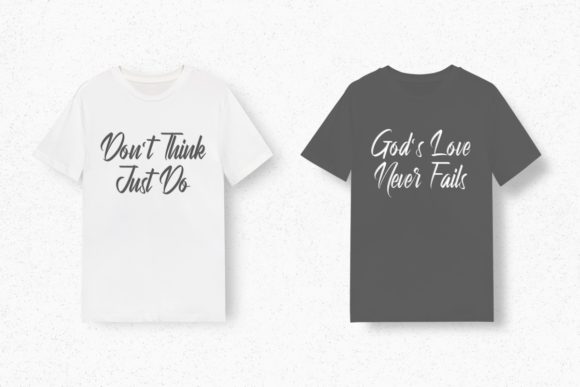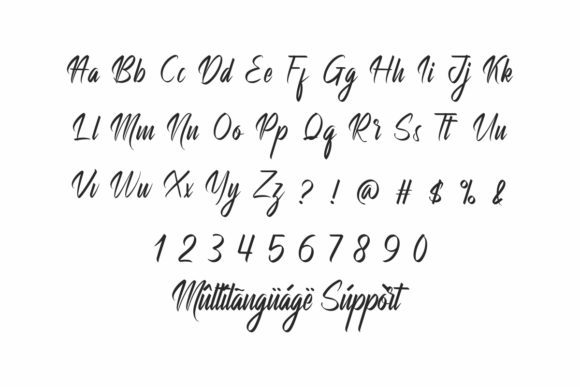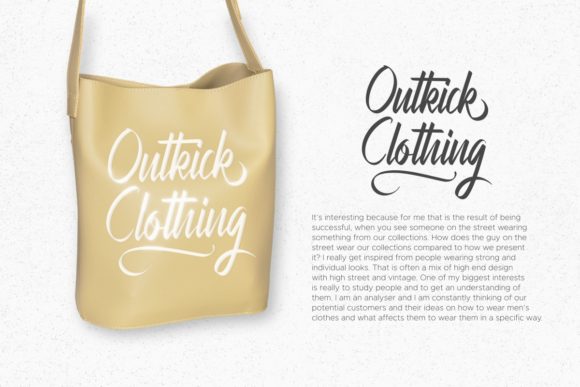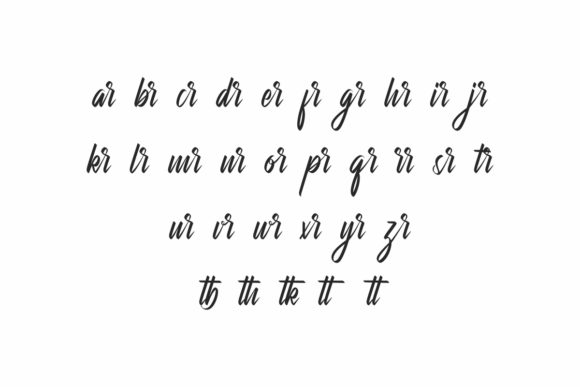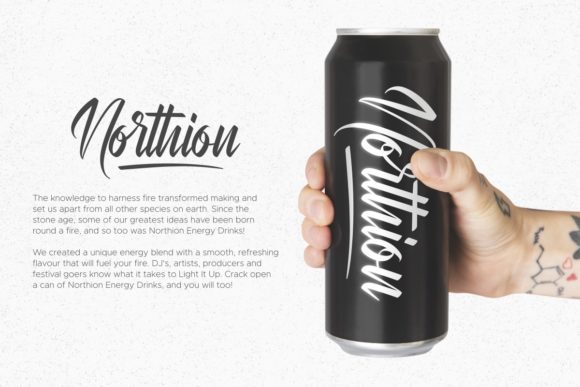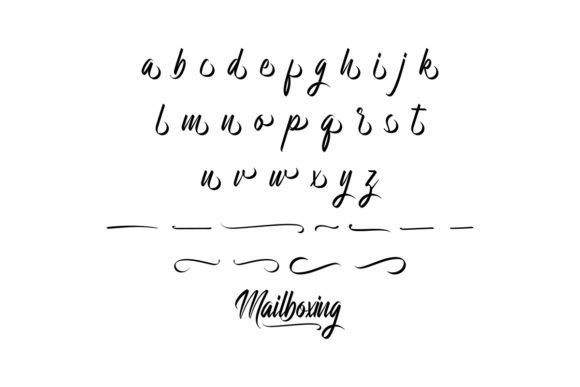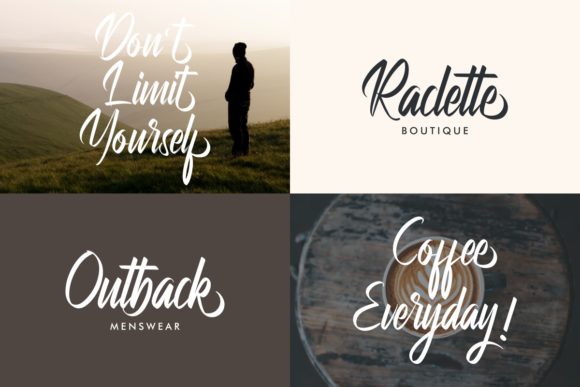
Mailboxing Font
About Mailboxing Font
Mailboxing is a brushed handwritten font. It is defined by smooth curves and is perfect for fashion branding or editorial designs. Add it confidently to your projects, and you won’t be disappointed.